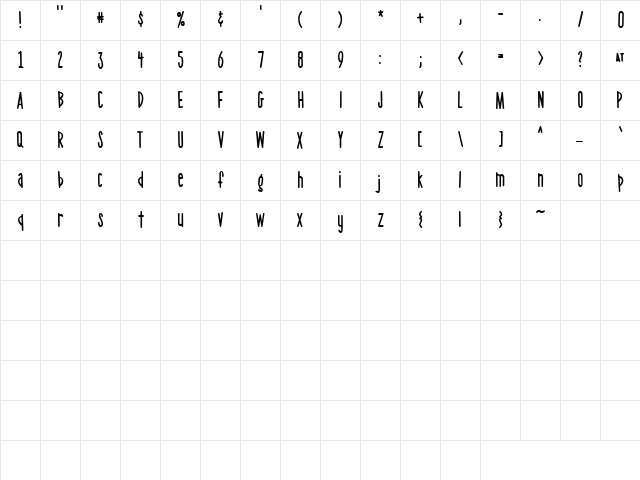
LD Tall Tale Regular Font Preview
LD Tall Tale Regular
Design Context for LD Tall Tale Typeface
LD Tall Tale is a composed and adaptable typeface that performs quietly and consistently across a wide range of design contexts.